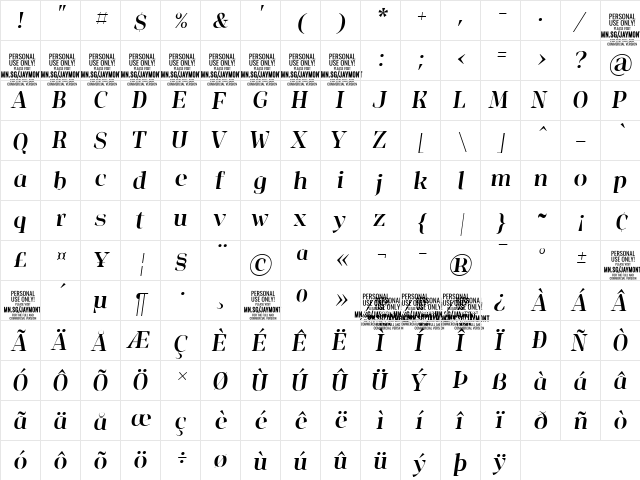
Jaymont PERSONAL Medium Italic
| Foundry | Mans Greback |
| Designer | Mans Greback |
Design Context for Jaymont PERSONAL Typeface
Jaymont PERSONAL is a composed and adaptable typeface that performs quietly and consistently across a wide range of design contexts. Its italic angle brings a sense of urgency and motion to the letterforms.
Pro Tip: Try Jaymont PERSONAL for annotation and caption copy alongside an upright companion — the contrast in angle creates a dynamic but ordered typographic system.